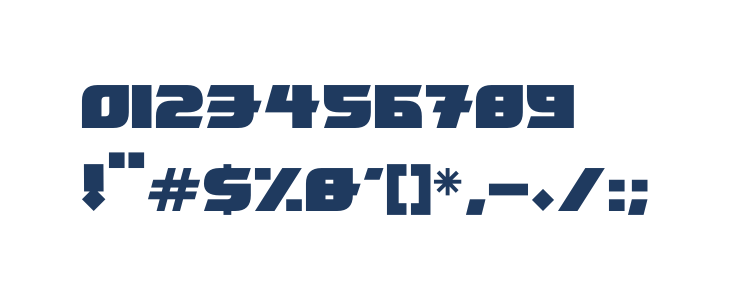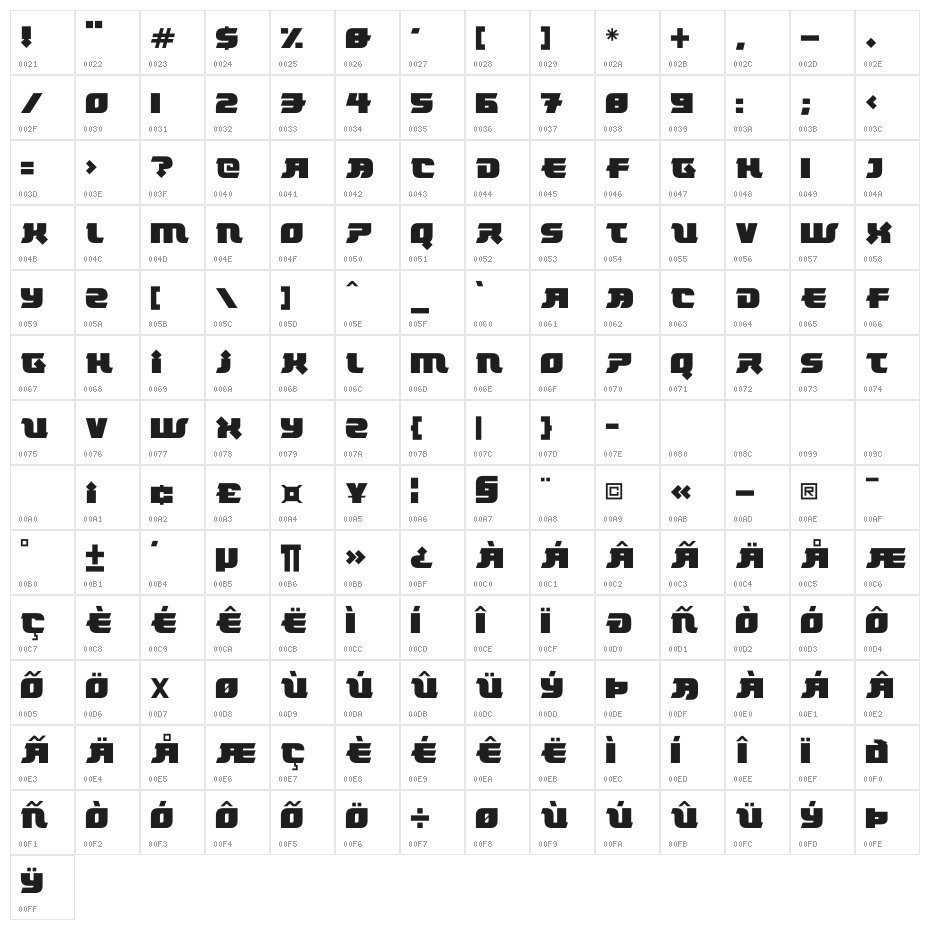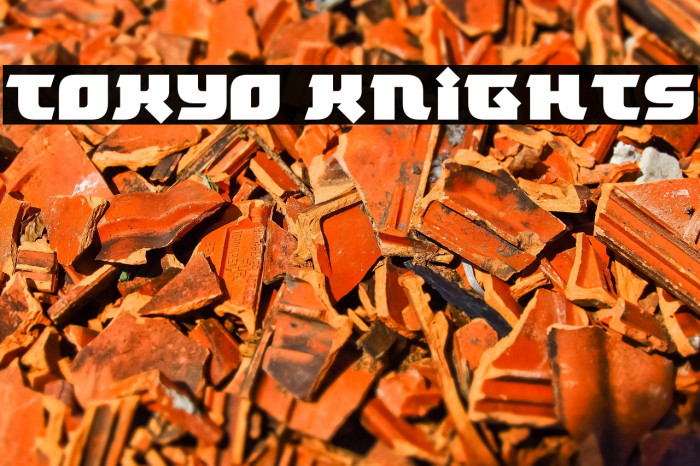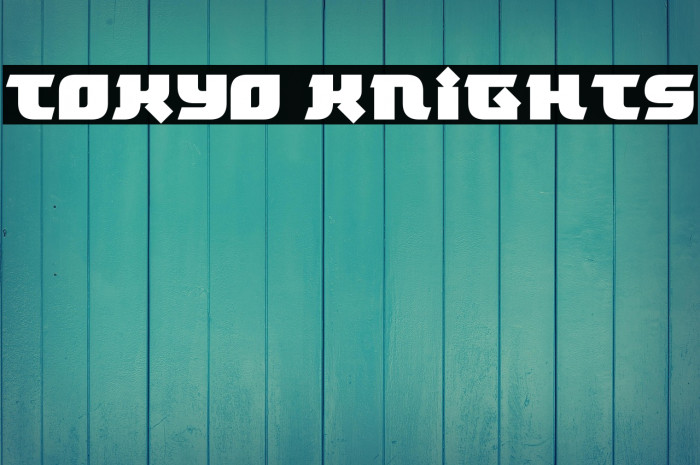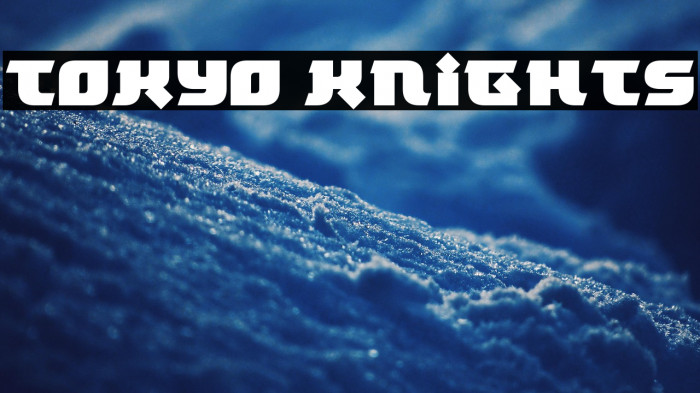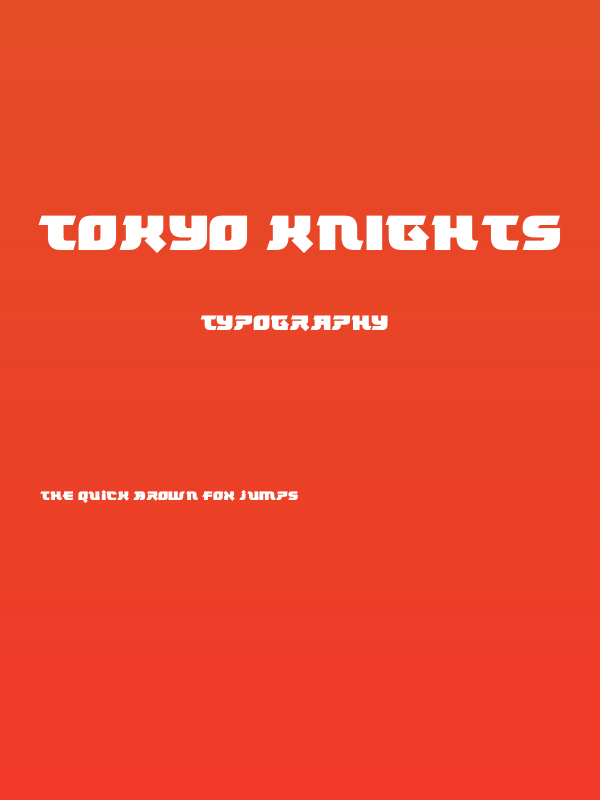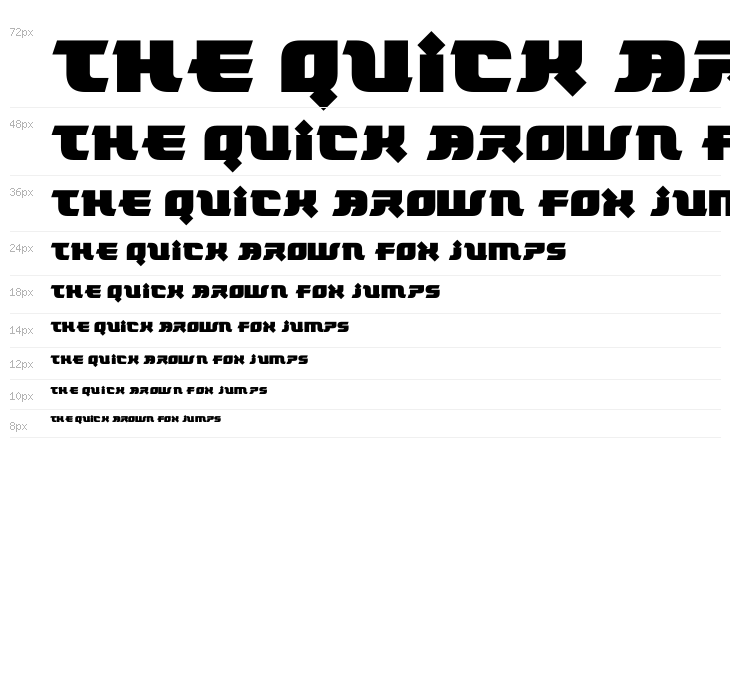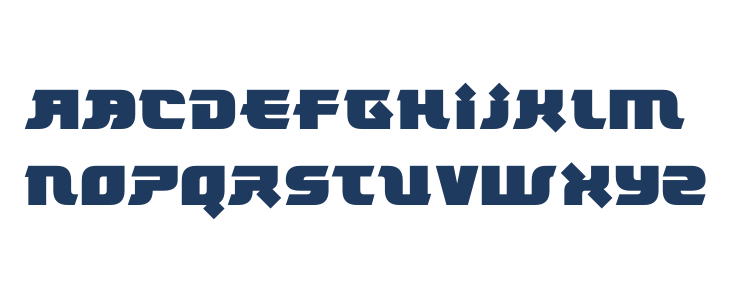
Tokyo Knights Font
Tokyo Knights Description
This font features a bold and striking design with angular, geometric shapes that create a futuristic and edgy appearance. The characters are constructed with sharp edges and a blocky structure, giving it a strong visual impact. The uppercase and lowercase letters maintain a consistent style, with unique cutouts and angles that add to its distinctiveness. The numbers and special characters follow the same design principles, ensuring uniformity across all glyphs. This font is ideal for projects that require a modern and bold statement.